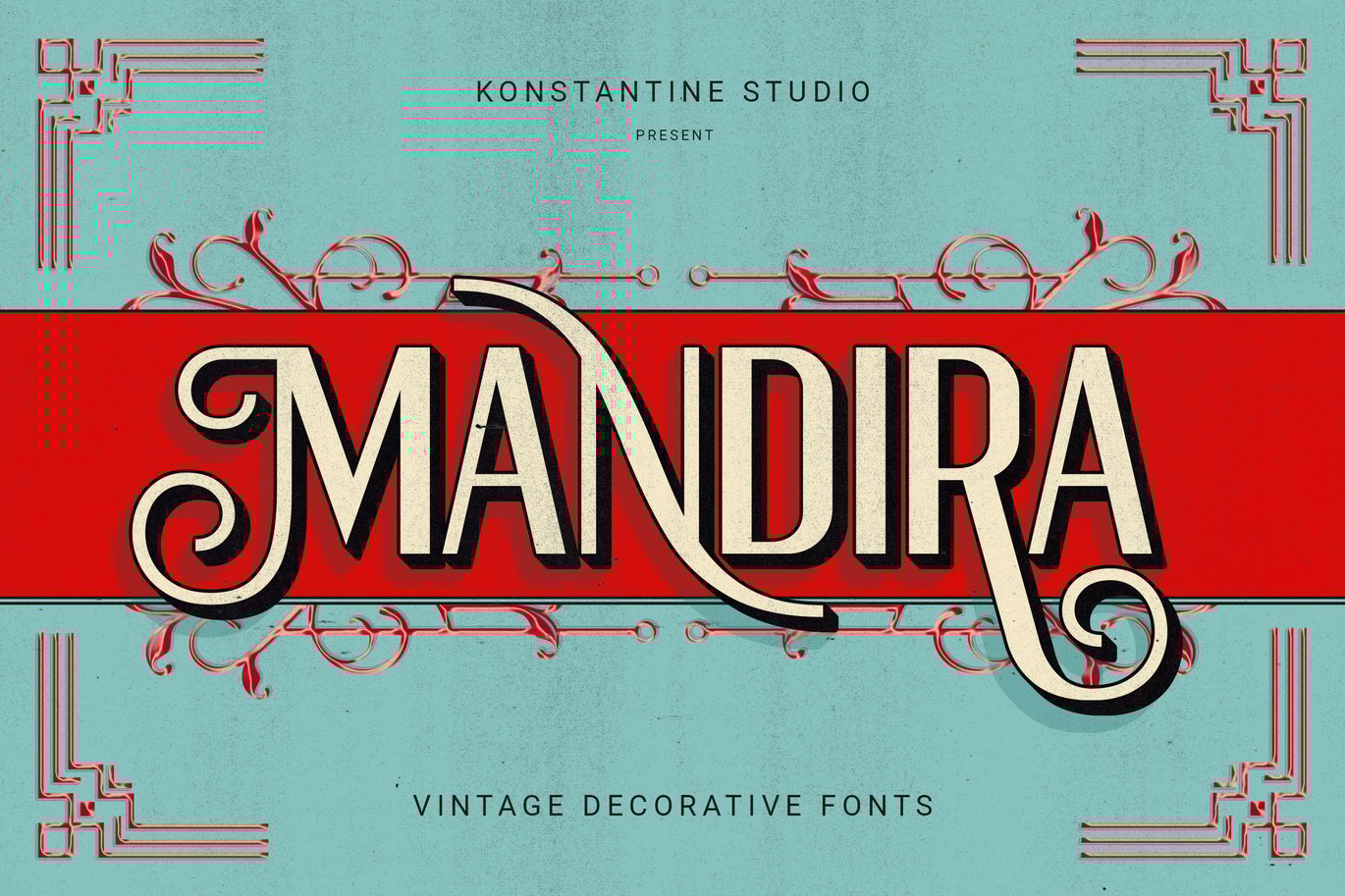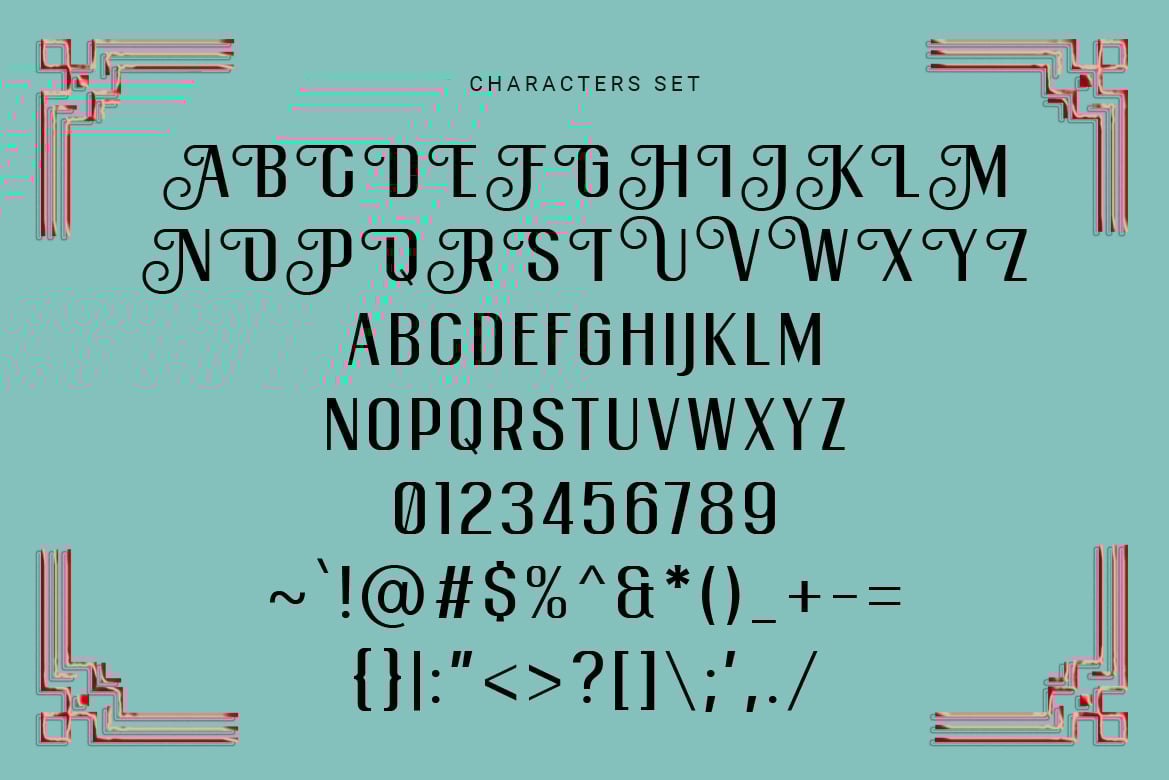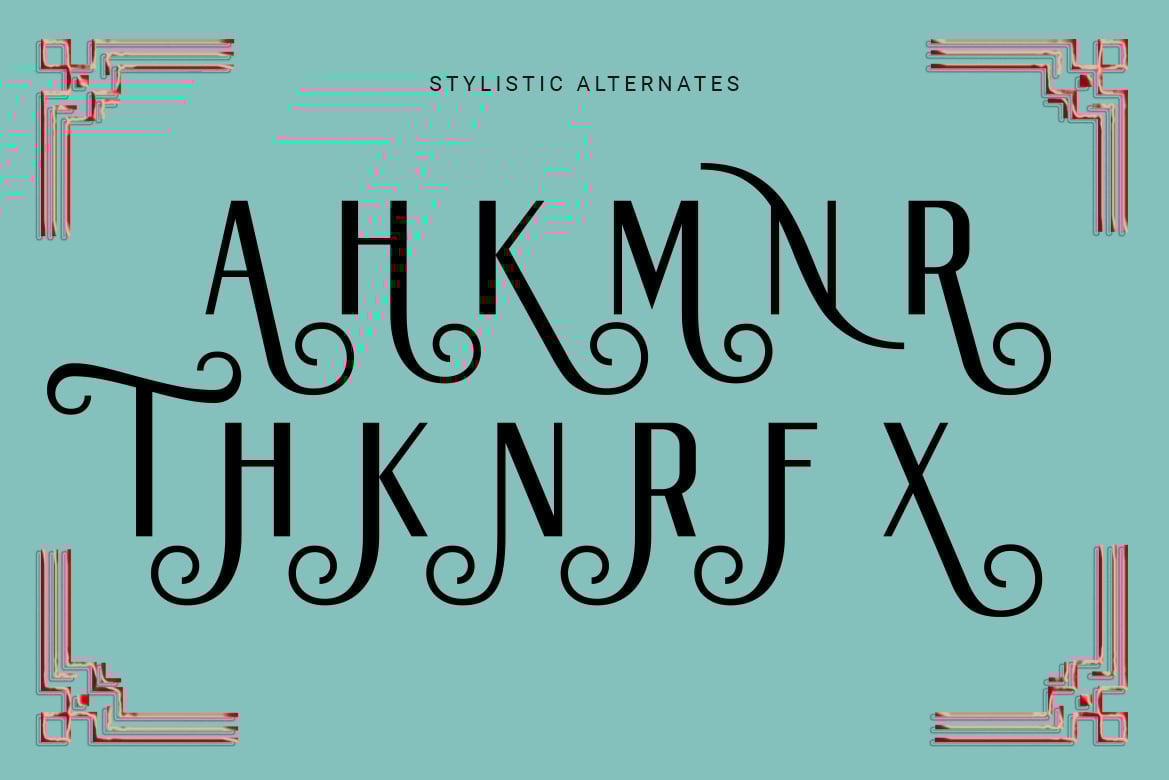
Mandira – Vintage Decorative Fonts
Mandira is a vintage decorative sans serif font. It was inspired by the trend of the victorian era, prints headline, retro signs, newsletters, and advertising back in the 50s. Touched up with the simplified yet minimalist modern trend, Mandira is a perfect choice for your branding fonts.
Perfectly fit for a logo, branding, signage, decor, books, cover, badges and emblems, clothing, apparel, merchandise, movie title, serials, and many more.